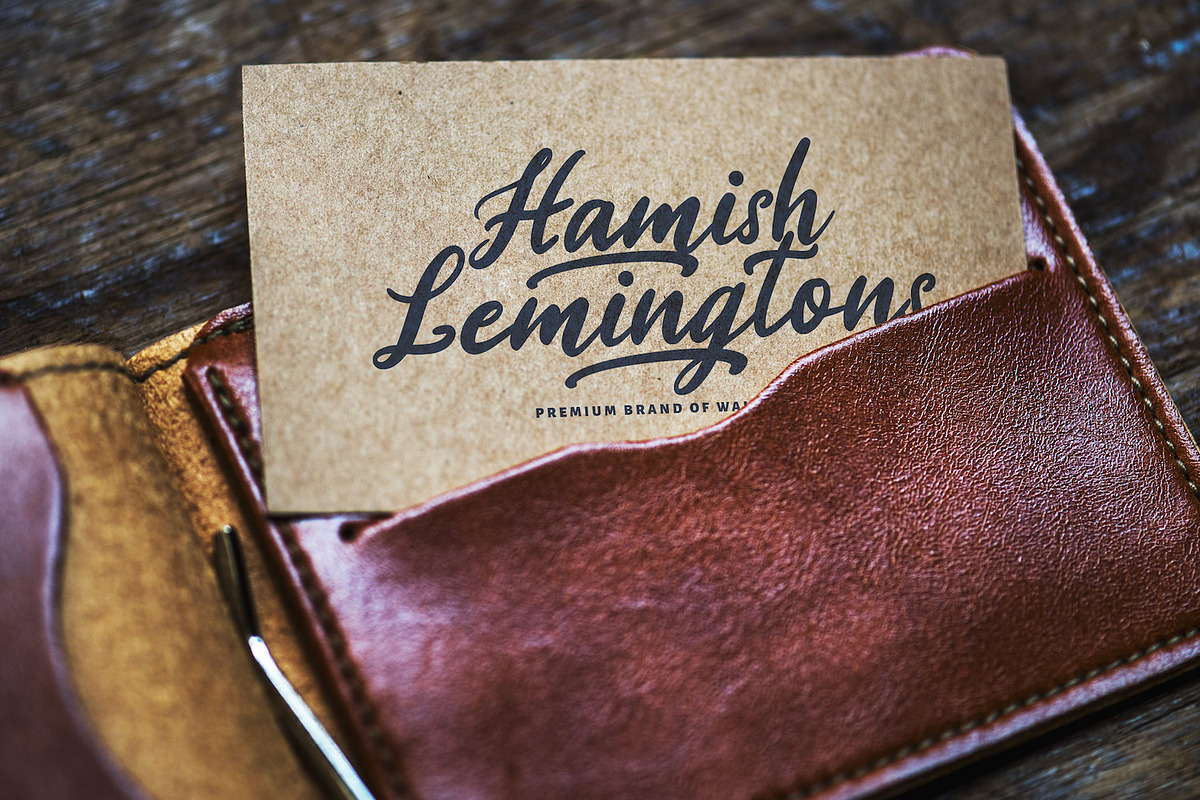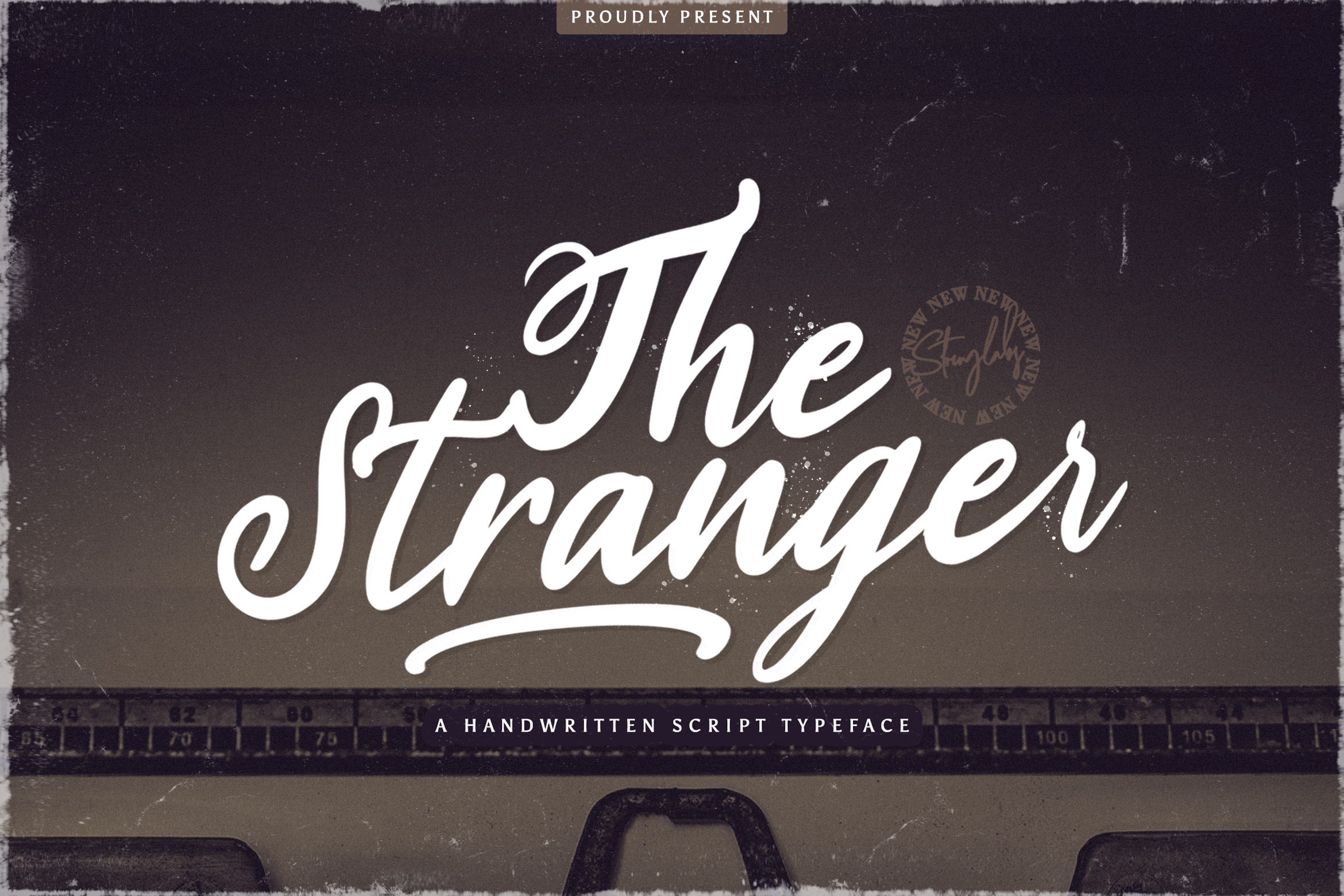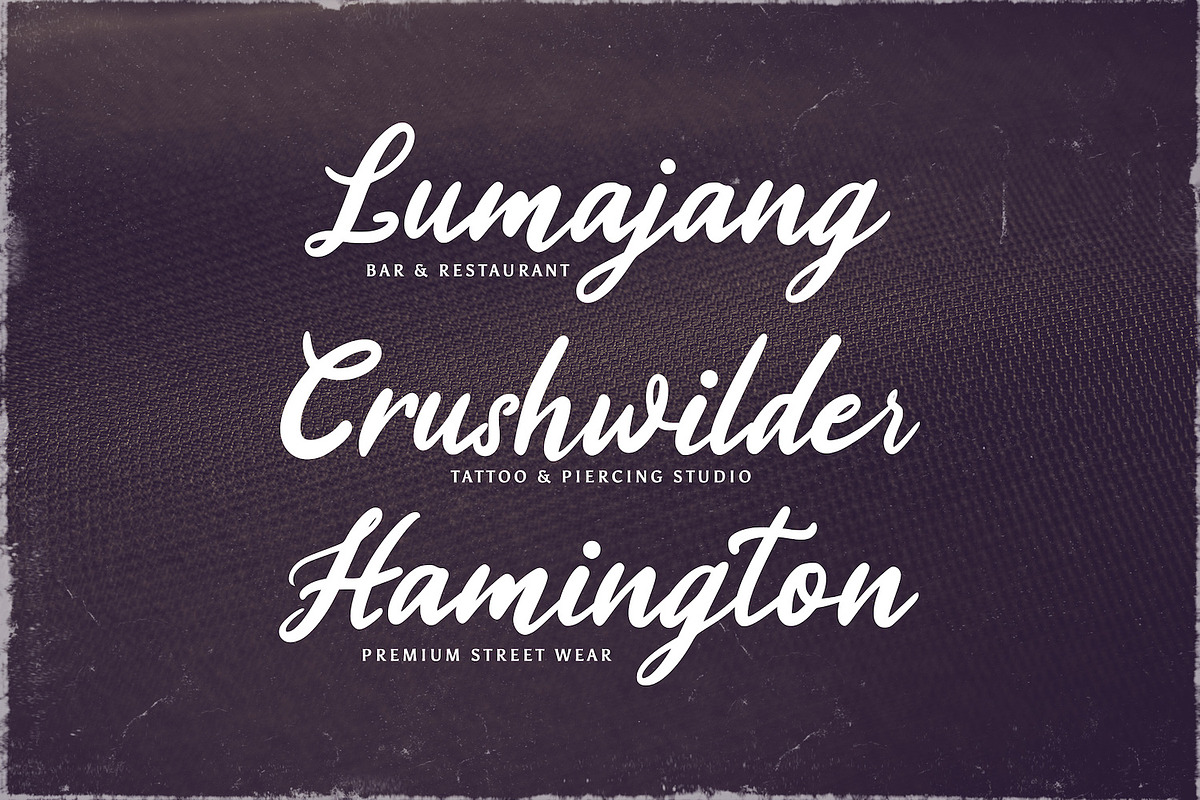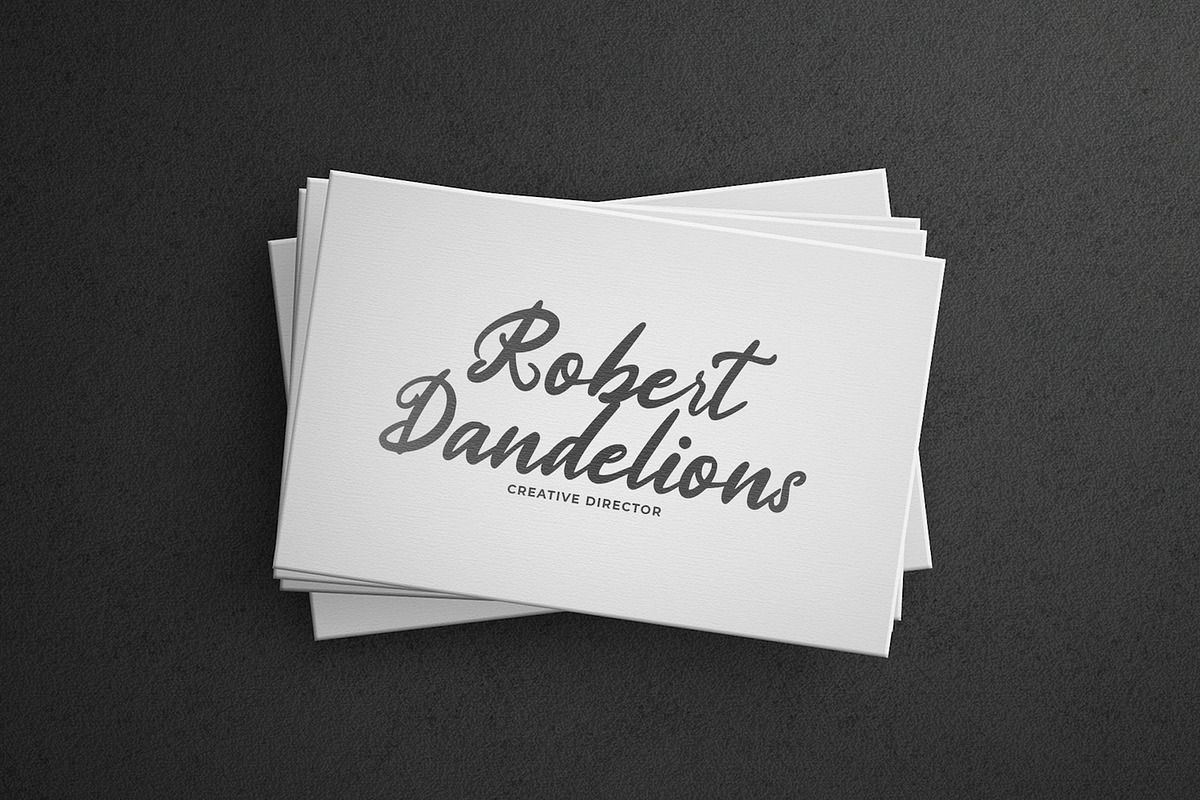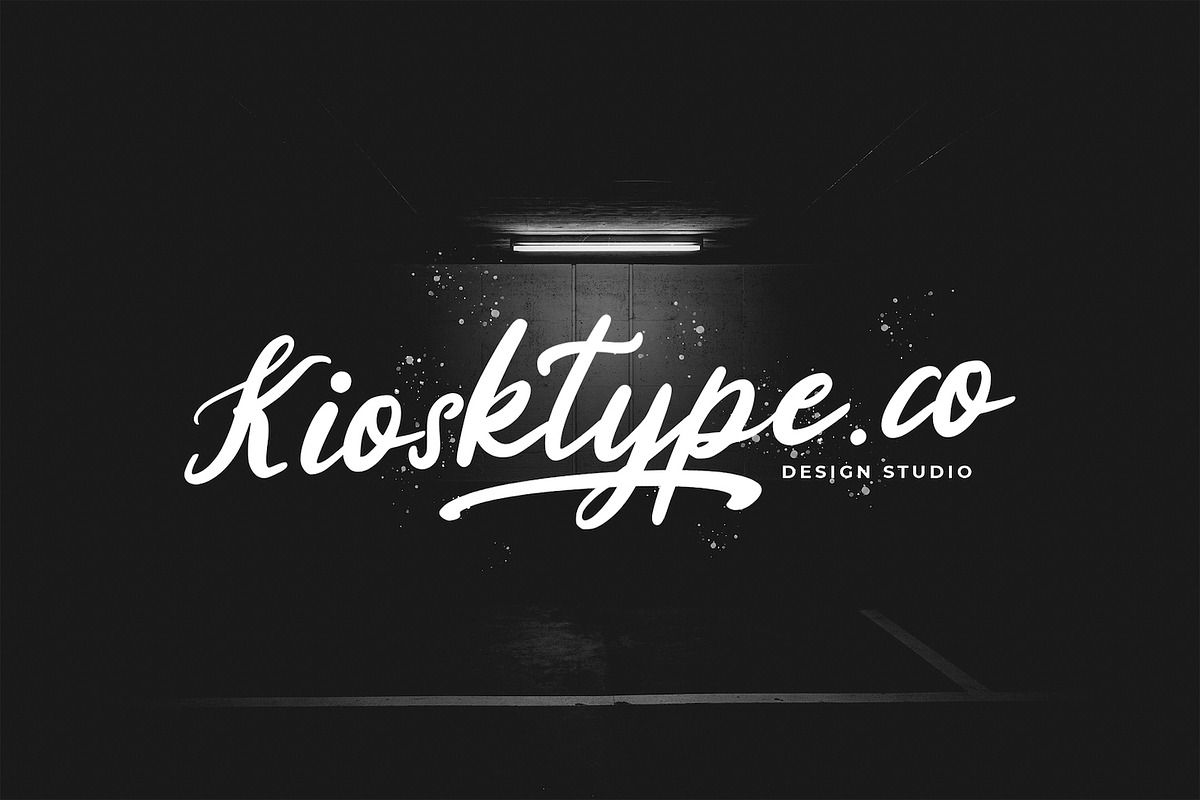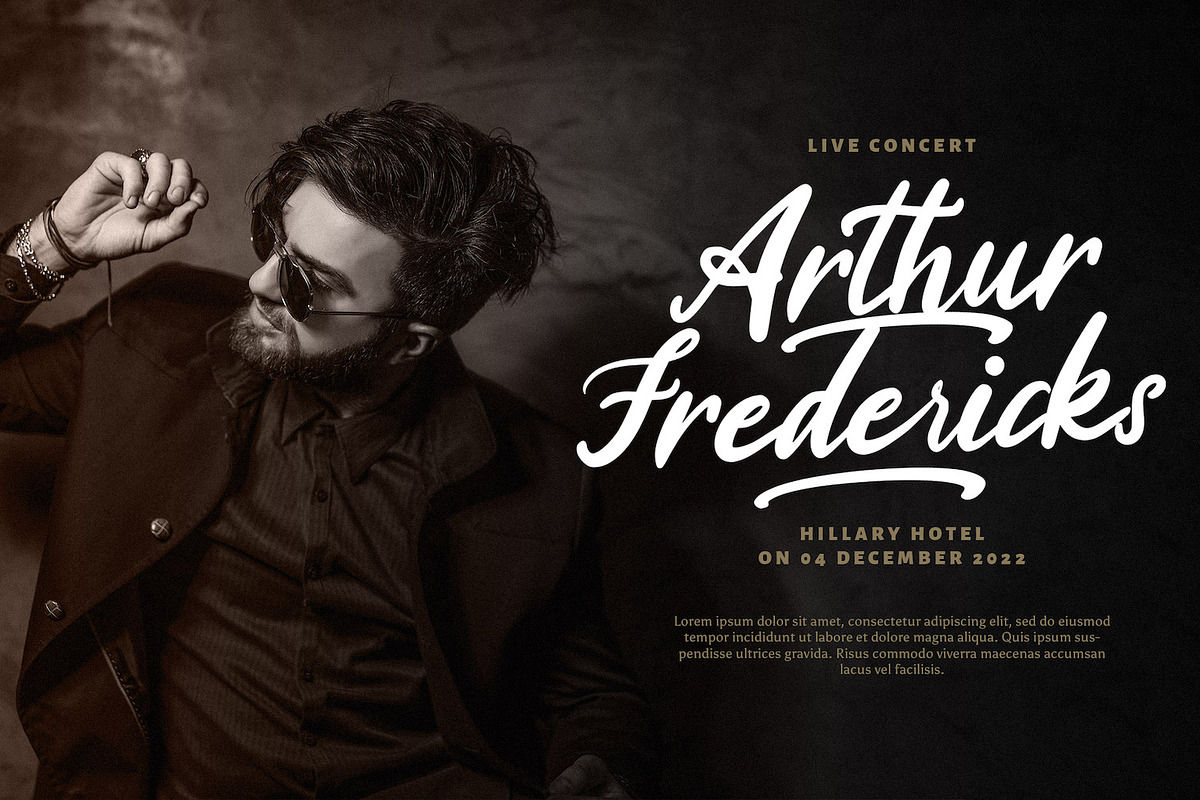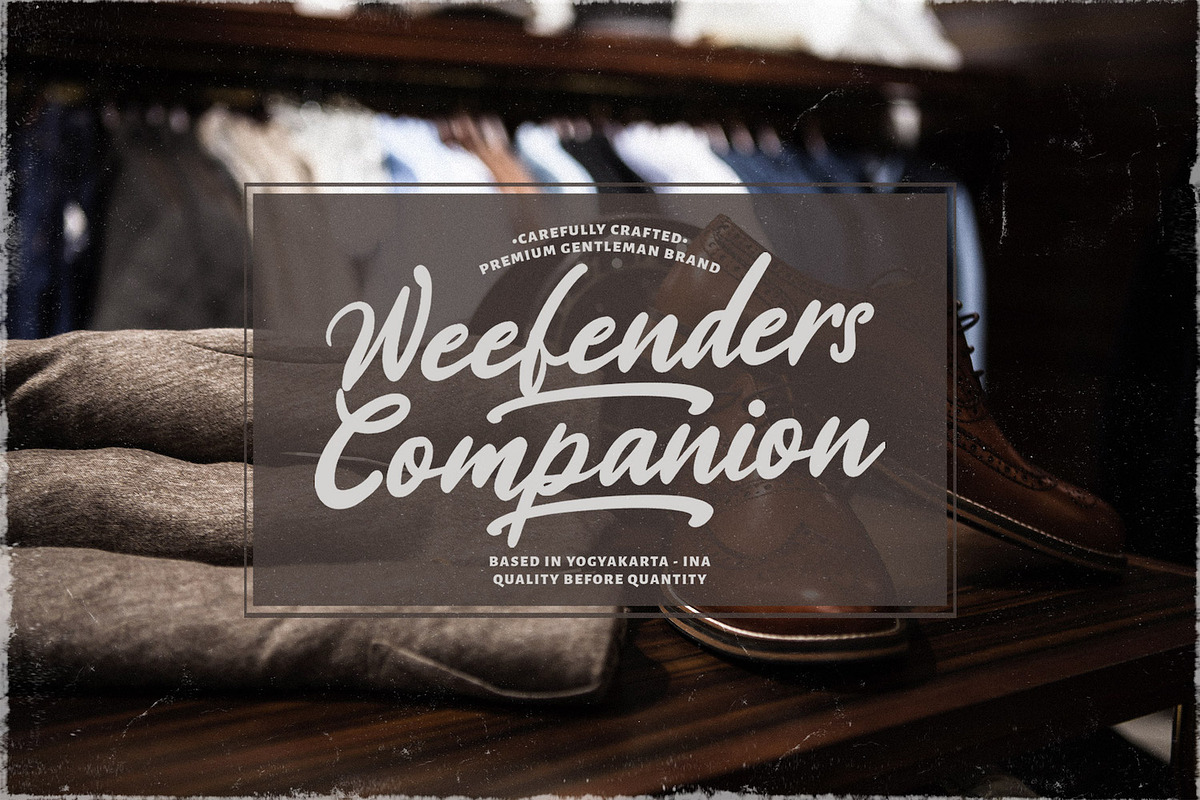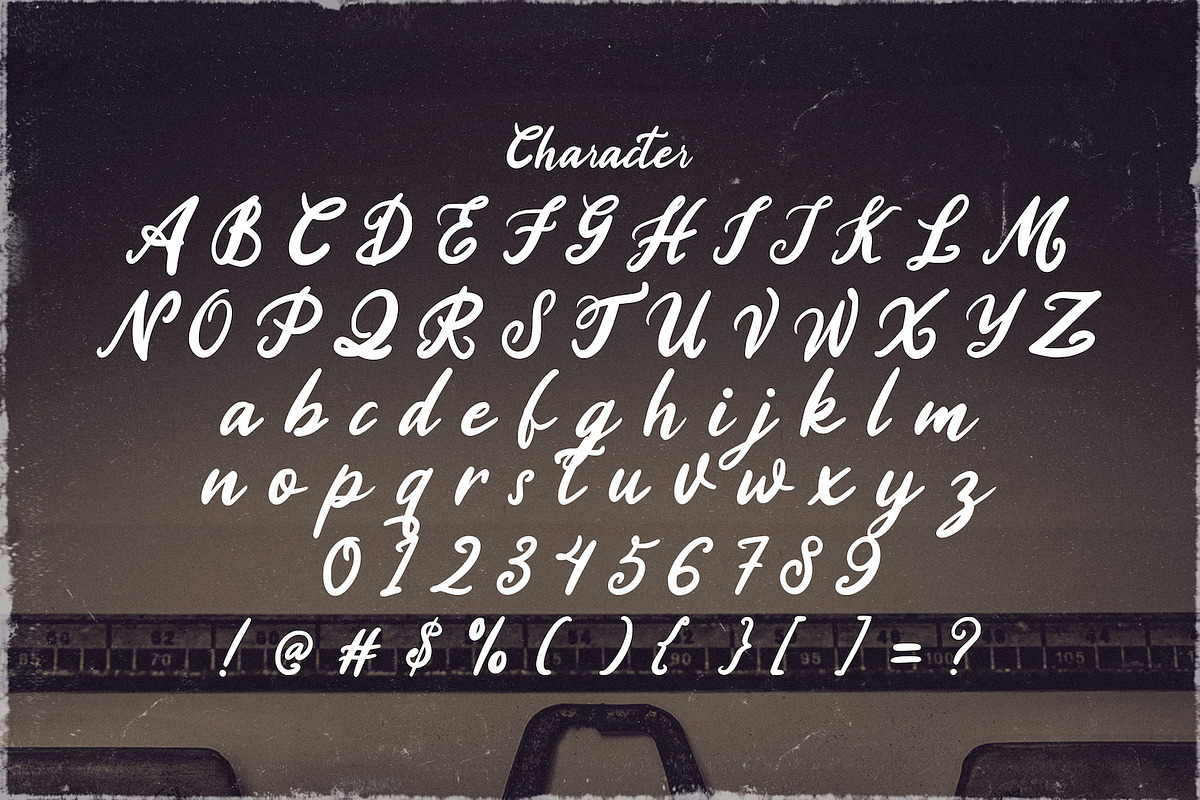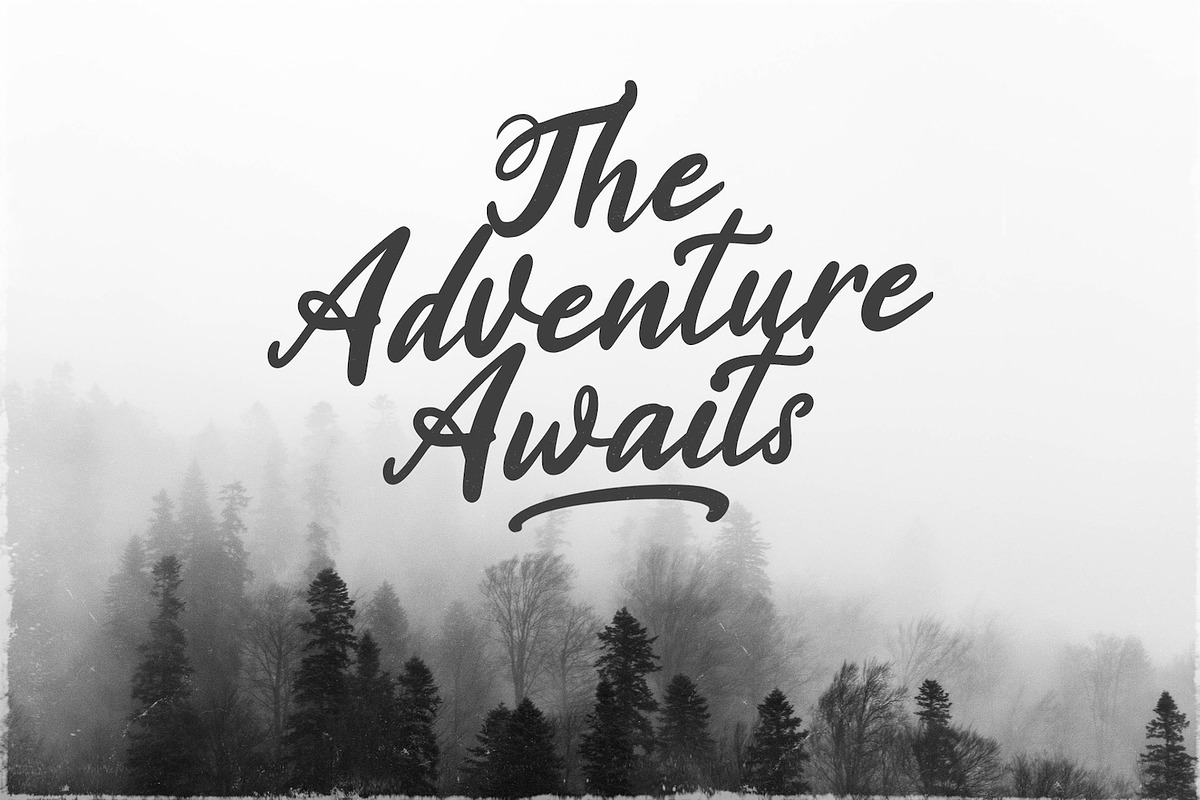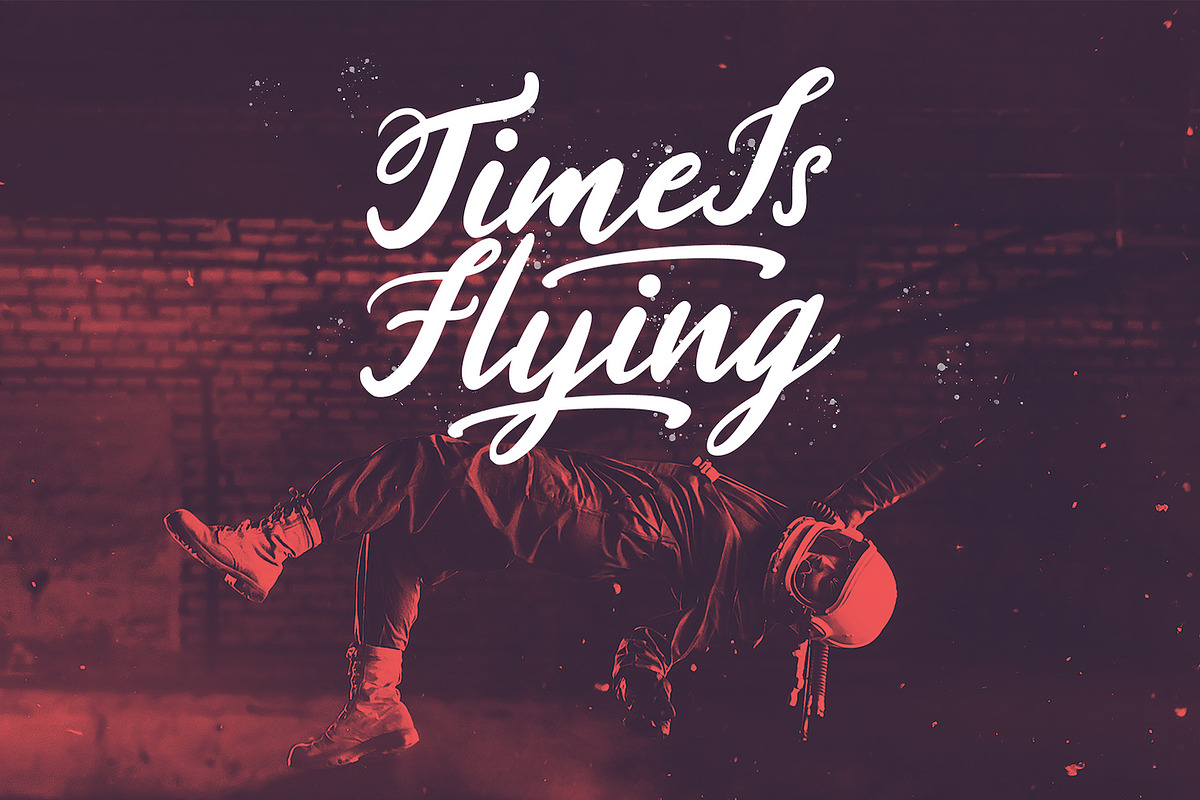
Stranger - Handwritten Font
Introducing Stranger - Handwritten Font
Stranger is a delicate, elegant and flowing handwritten font. It has beautiful and well balanced characters and as a result, it matches a wide pool of designs. Add it to your most creative ideas and notice how it makes them come alive!